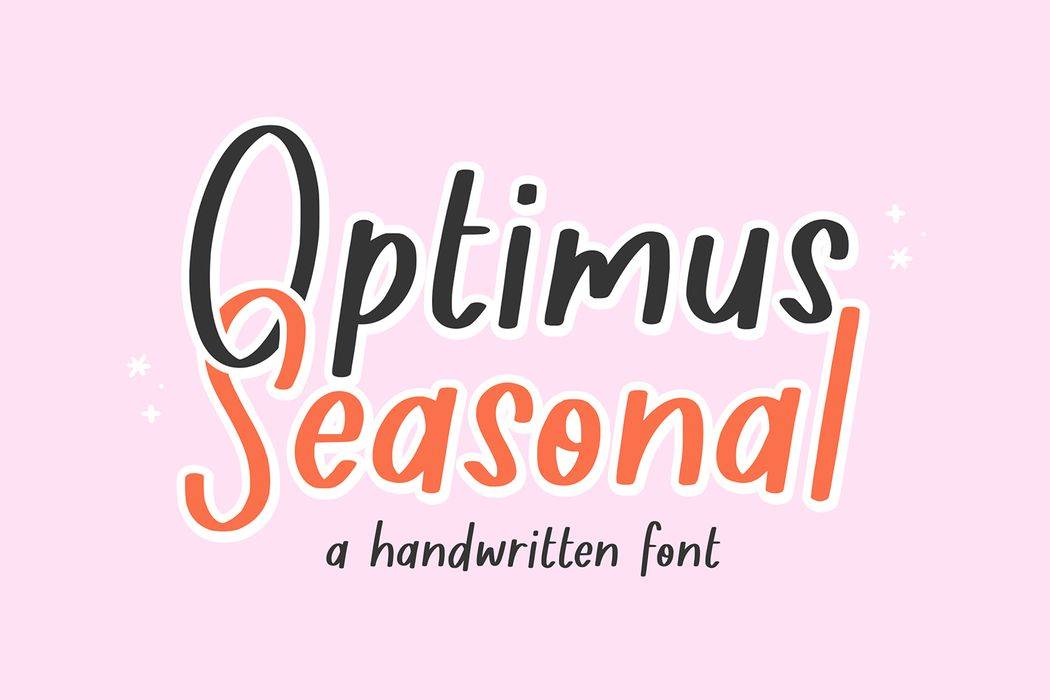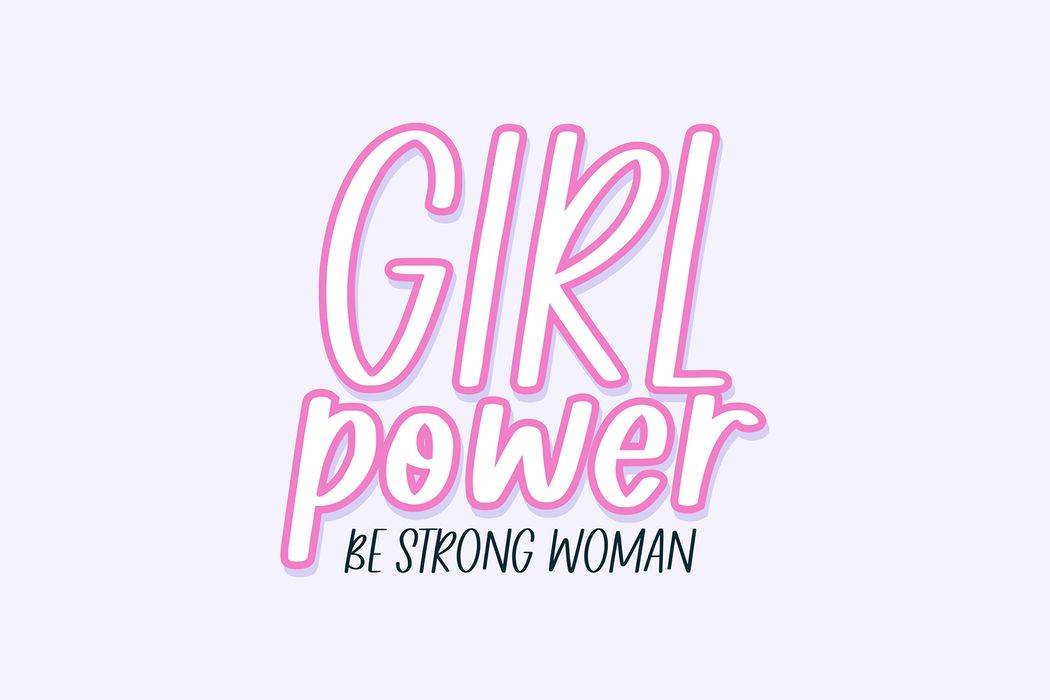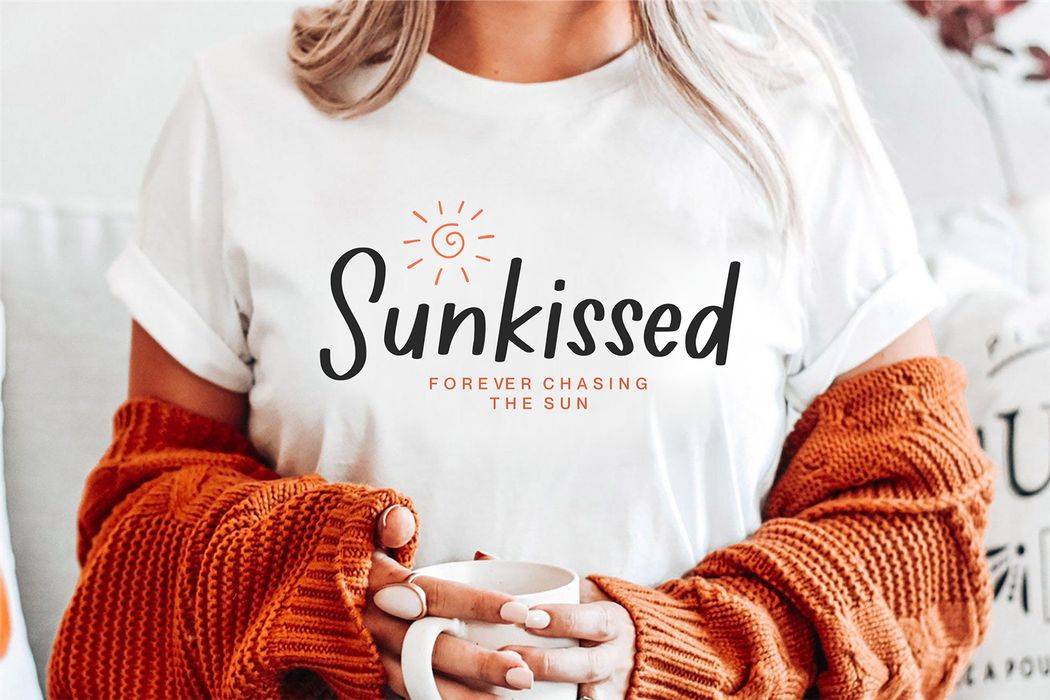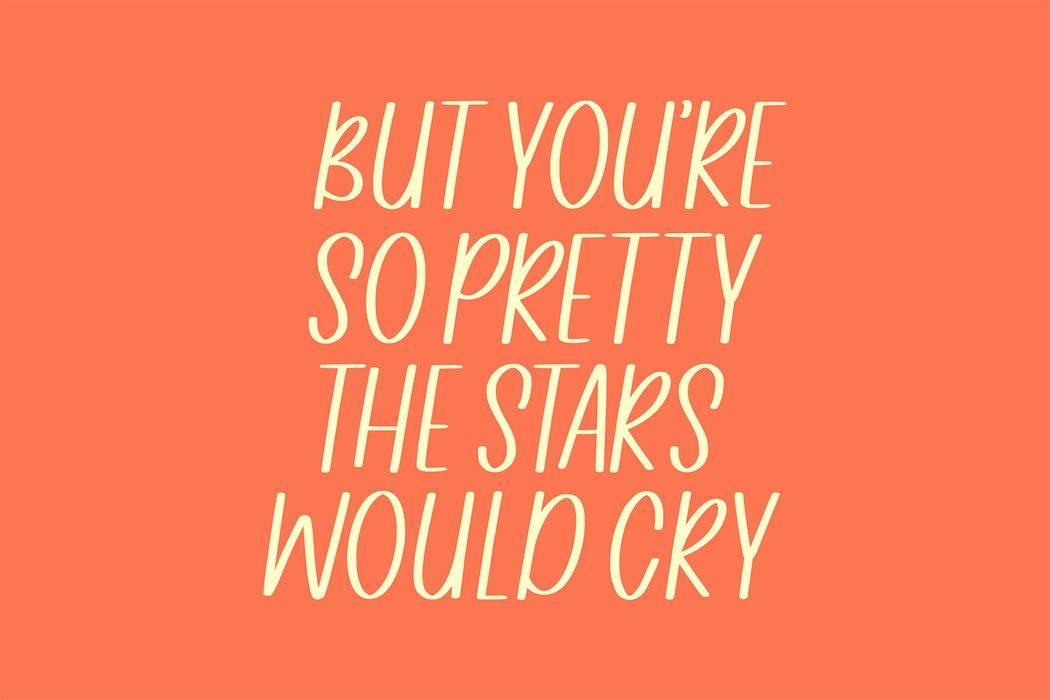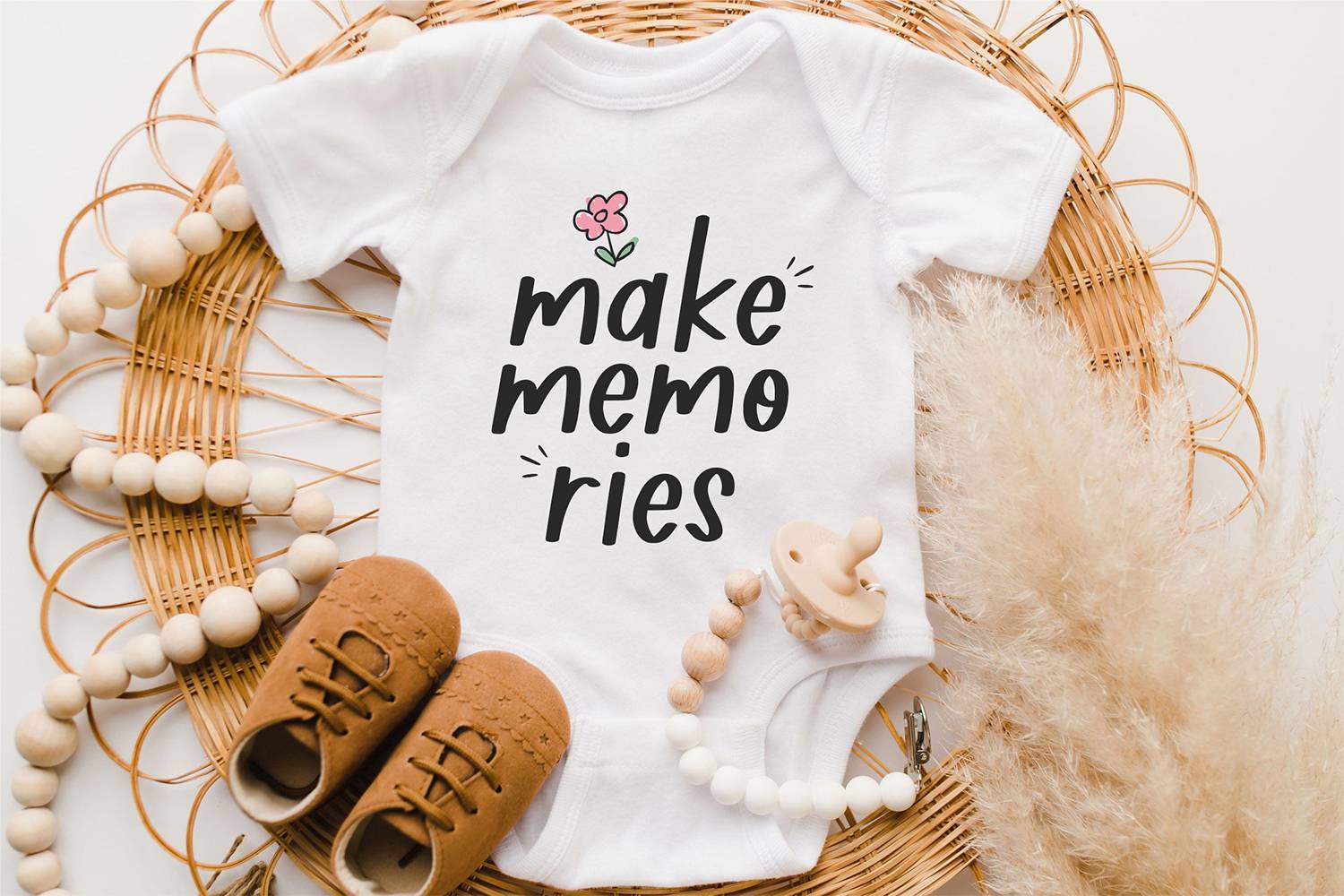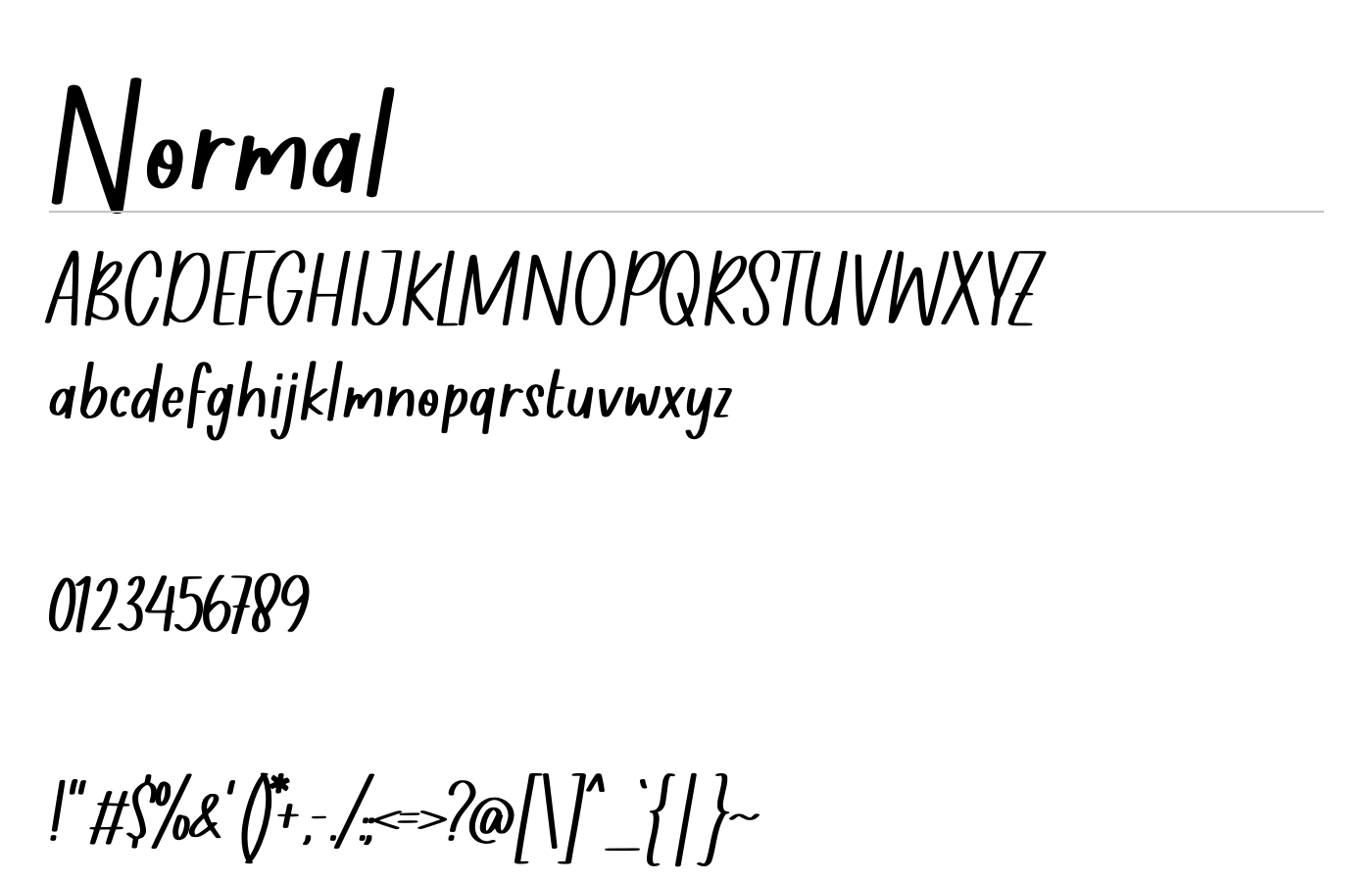
Optimus Seasonal is a slender, playful script font with a handwritten feel, characterized by its tall, narrow letterforms and consistent stroke weight. Its lively, casual style makes it perfect for adding a friendly and approachable touch to creative projects, logos, social media, and informal headlines. This font works well where a personal, energetic vibe is desired, bringing a sense of spontaneity and warmth to any design.
Optimus Seasonal Font
About Optimus Seasonal Font